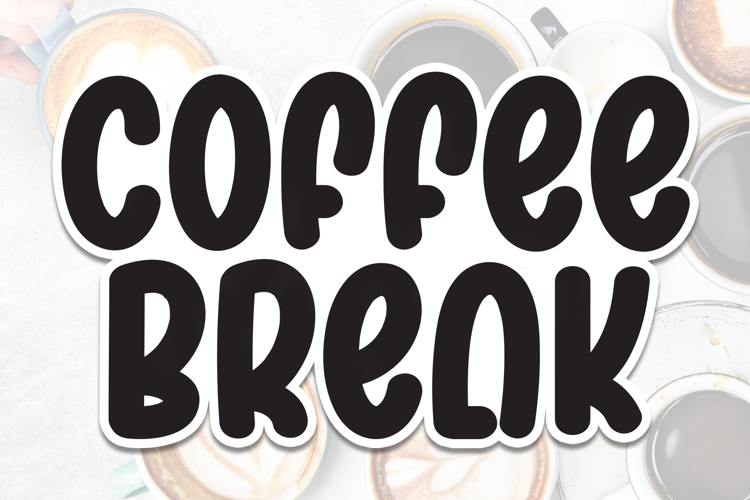
Coffee Crumble - A Handwritten Inky Font OTF TTF
Introducing "Coffee Crumble" a modern stylish handwritten inspired font, ideal for a variety design projects like wedding, greeting card, business card, posters, stationaries, school projects or any other events.
The script font includes full alphabet, numerals and punctuations.